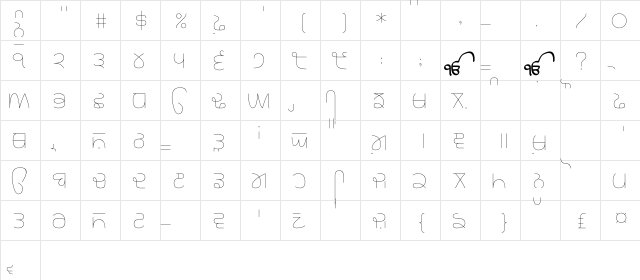
Rupe 0 Ultra Thin Short
| Foundry | Paul Alan Grosse |
| Designer | Paul Alan Grosse |
Design Context for Rupe 0 Ultra Thin Typeface
Rupe 0 Ultra Thin takes a measured approach to typography — its balanced proportions and neutral character make it a reliable workhorse for both digital and print work. The delicate stroke weight brings airiness and refinement to layouts.